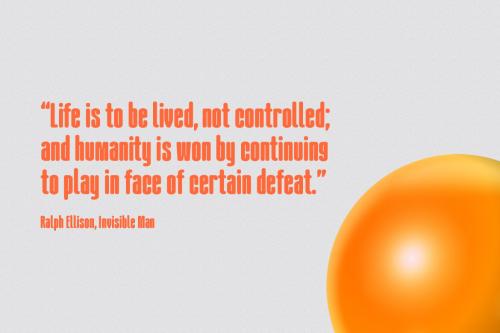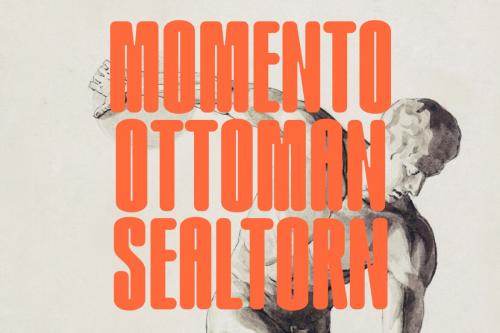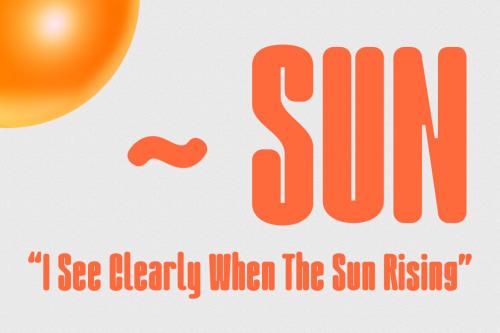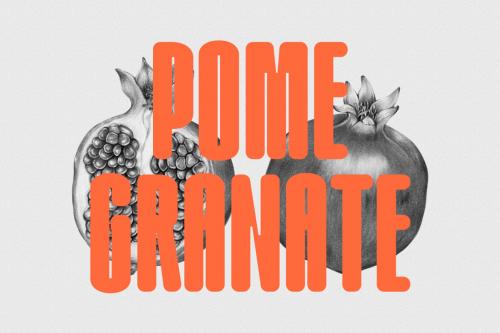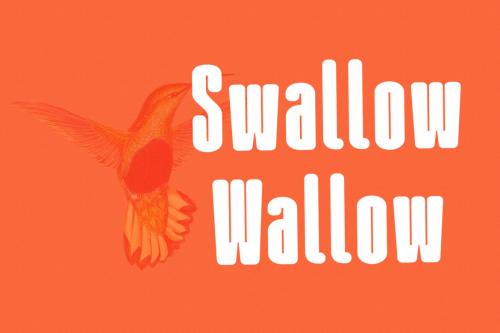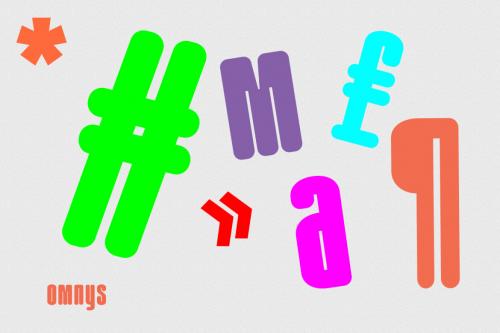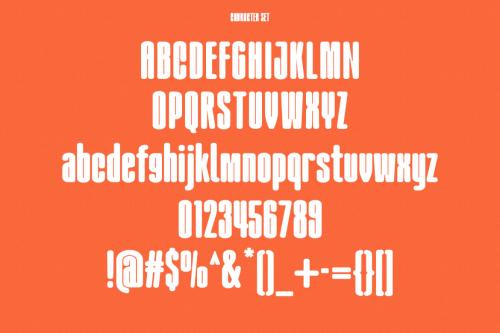
Omnys is a common sans serif with round soft edges stroke font. Bold stroke, fun character with a bit of ligatures and alternates. To give you an extra creative work. Omnys font support multilingual more than 100+ language. This font is good for logo design, Social media, Movie Titles, Books Titles, a short text even a long text letter and good for your secondary text font with script or serif. Make a stunning work with Omnys font.